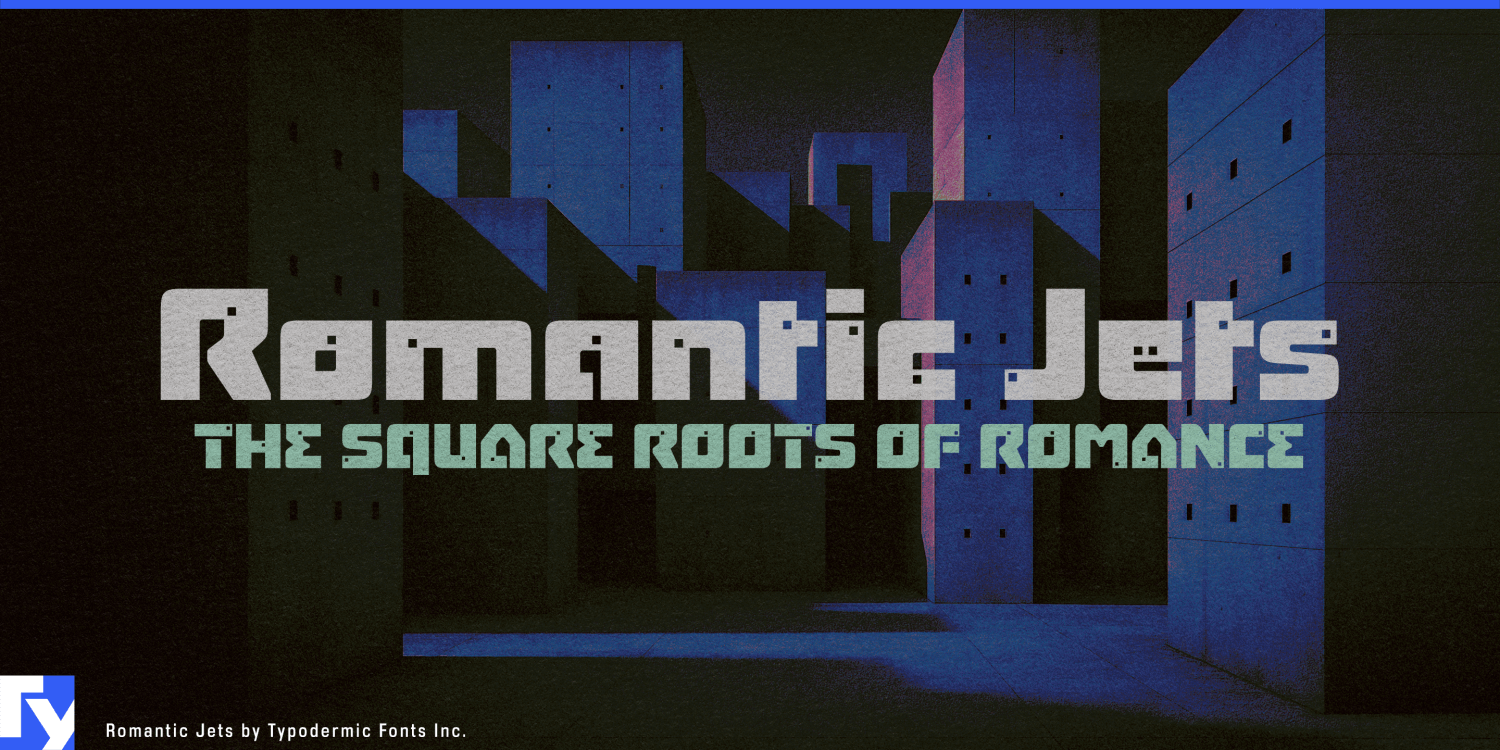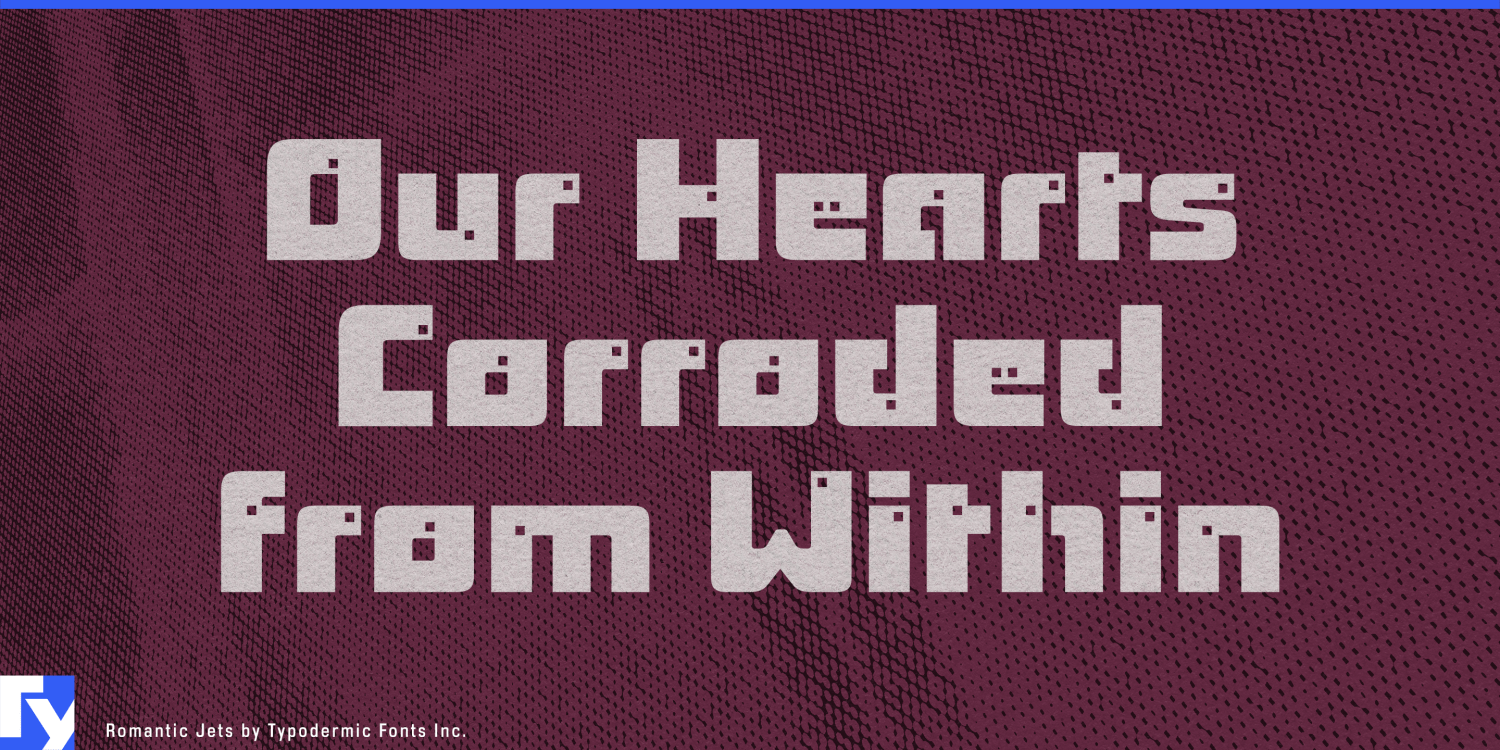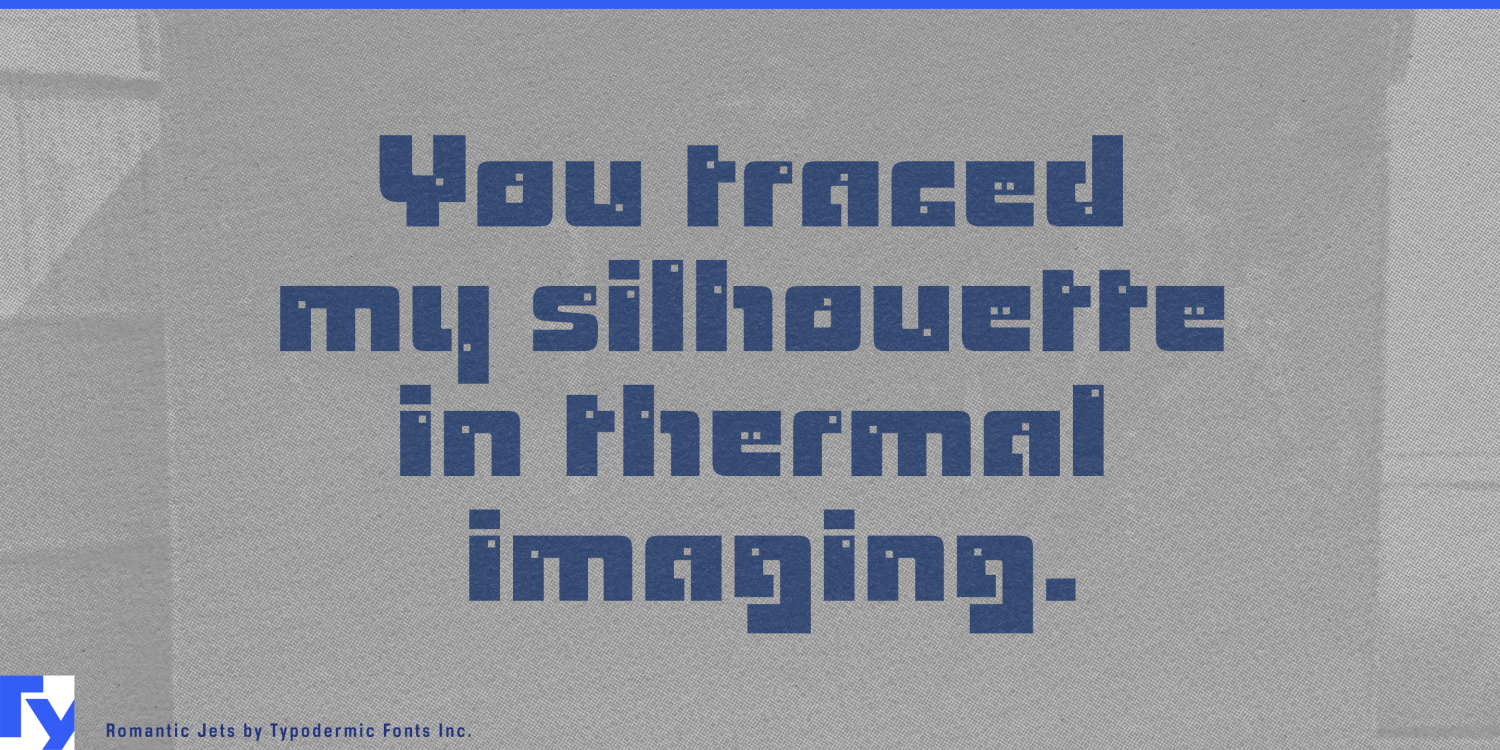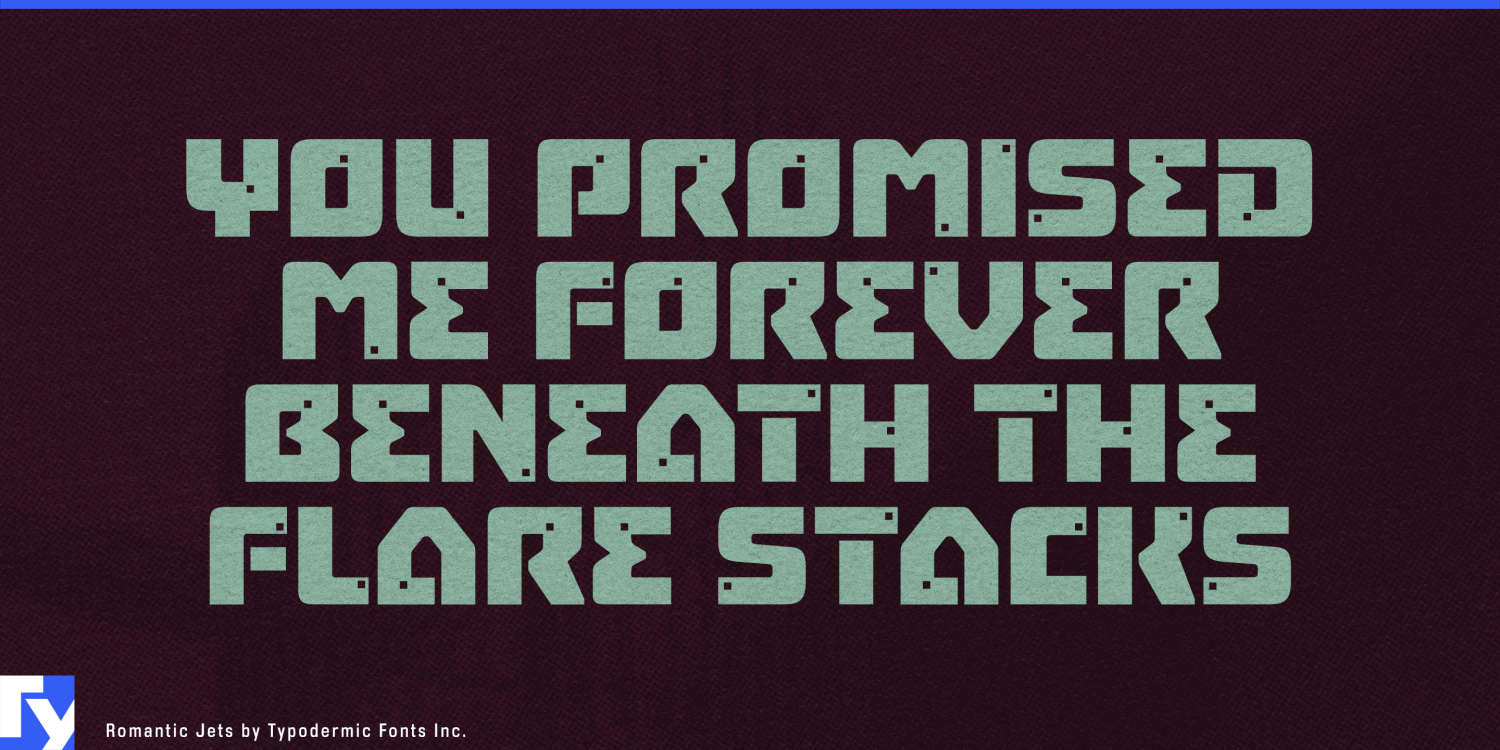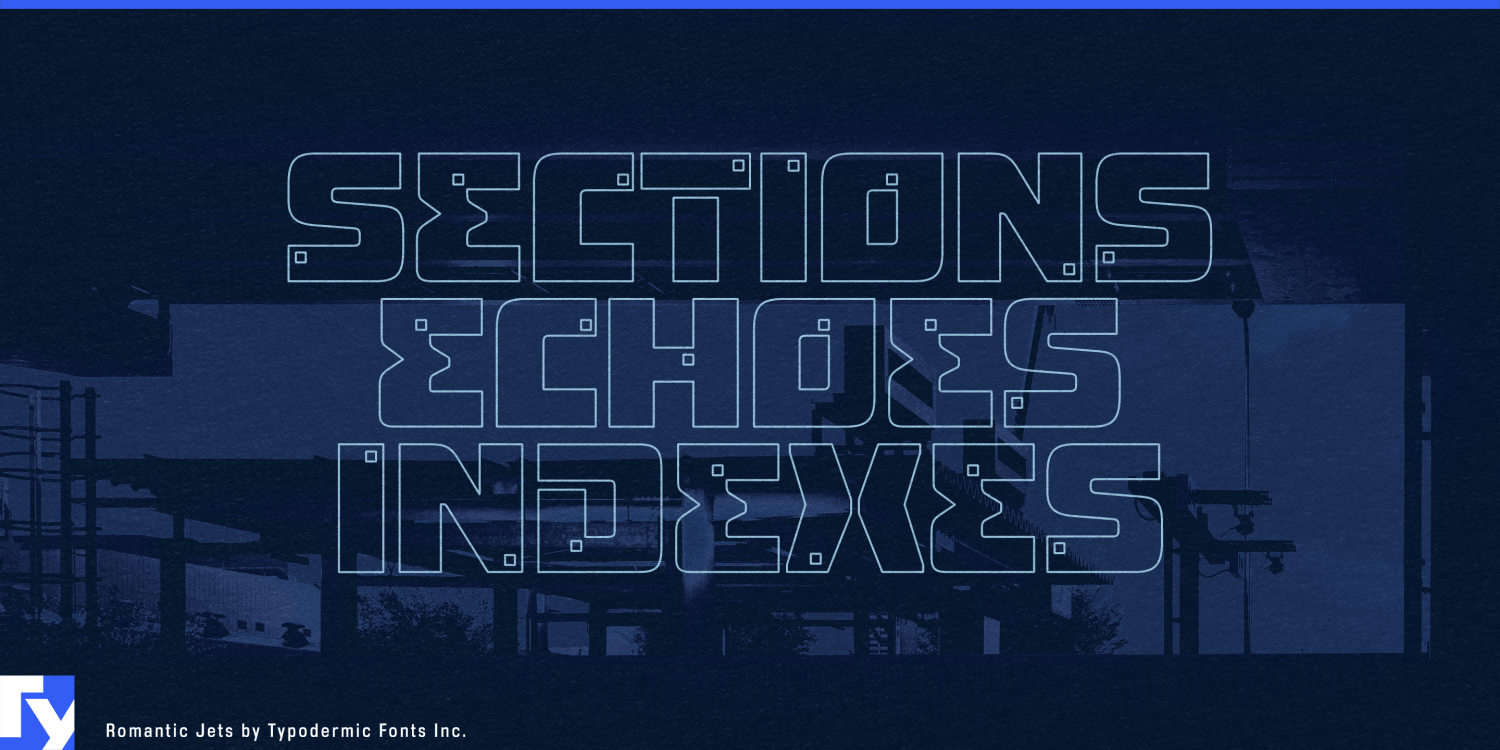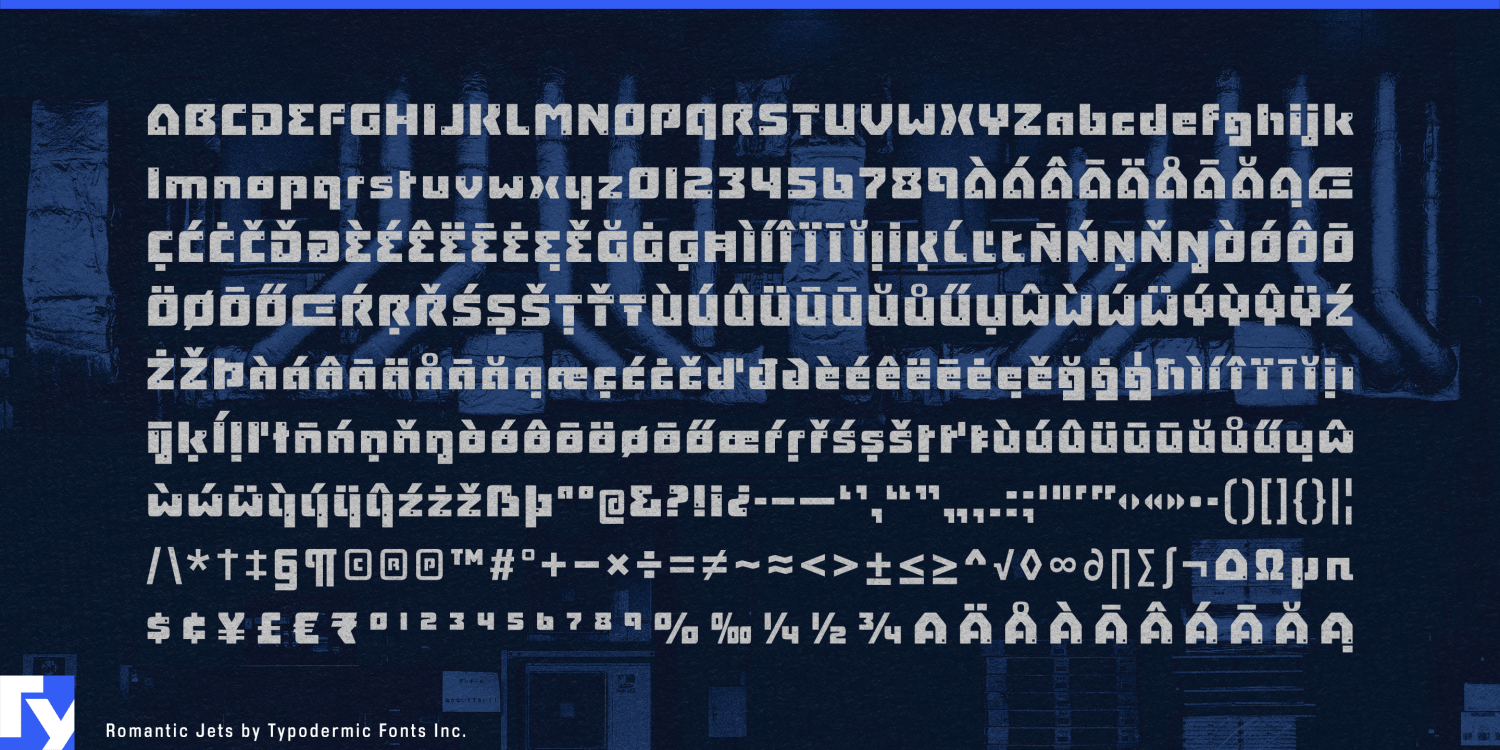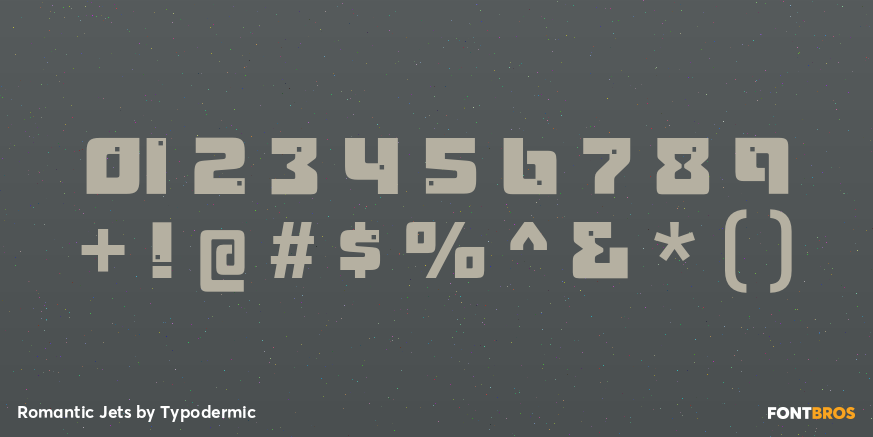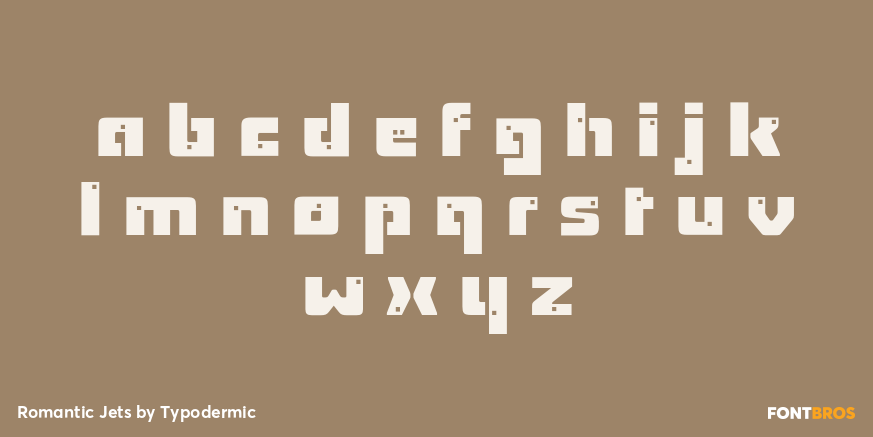
Romantic Jets
Romantic Jets began with buildings. Its heavy modular forms were inspired by brutalist architecture around Nagoya, with small square openings conceived as miniature windows cut through otherwise solid structures. The result is a display face whose letters can resemble compact pieces of architecture: thick walls, clipped corners, repeated modules and tiny voids.
That construction has acquired an unexpectedly contemporary context. Data centers, power systems and other infrastructure are increasingly assembled from prefabricated modules. Server pods, cooling units, edge-computing hardware and containerized equipment can use Romantic Jets for product-family names, enclosure graphics, trade-show displays and large facility identifiers while a quieter sans handles specifications and operational information.
Containerized energy systems offer a closely related application. Battery-storage units, microgrid equipment and inverter stations arrive as large rectangular components assembled into larger sites; Romantic Jets can make their names feel built from the same visual language as the hardware.
Prefabricated architecture brings the idea directly back to the font’s origin. Modular housing systems, precast concrete products, facade panels and factory-built rooms can use Romantic Jets for component names, project titles, catalogues and exhibition graphics. Brutalist preservation, postwar architecture and concrete-building exhibitions provide a cultural branch where its original architectural reference remains especially clear.
Romantic Jets works best when a short name needs to feel built rather than written: a server module, battery container, prefab system, building component or architectural exhibition. Its small square details reward generous scale, making it better suited to product names and large identifiers than ordinary text.